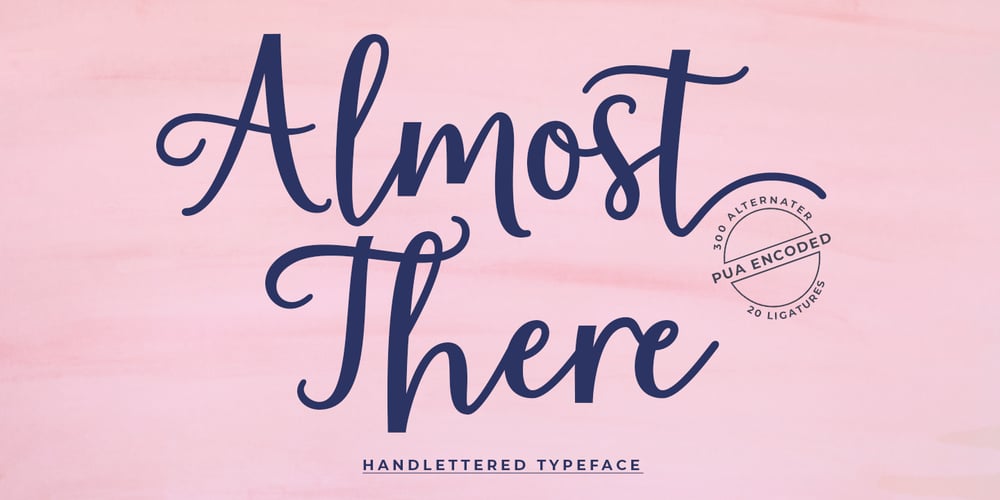
Almost There Script Font Family was designed by Mur Zani and published by Zane Studio. Almost There Script contains 1 styles and family package options. Almost There Script is a new and modern new script in handmade calligraphy style, with decorative characters and a dancing baseline! So beautiful on invitations like greeting cards, branding materials, business cards, quotes, posters, and more.Almost There Script is equipped with 500 ligatures. Alternative characters are divided into several OpenType features such as Swashes, Collection Styles, Alternative Styles, Contextual Alternatives. The OpenType features can be accessed by using Open Type savvy programs such as Adobe Illustrator, Adobe InDesign, Adobe Photoshop Corel Draw X version, and Microsoft Word. And this font has provided Unicode PUA (special code font) so all alternative characters can be easily accessed by craftsmen or designers.Almost There Script:Uppercase & Lowercase International Language & Symbols Support Punctuation & Number PUA Unicode Range Stylistics Standard Alternative Stylistics Manage 1-28 Contextual Character Variants.If you don’t have a program that supports OpenType features like Adobe Illustrator and CorelDraw X Version, you can access all alternative glyphs using Font Book (Mac) or Character Map (Windows).